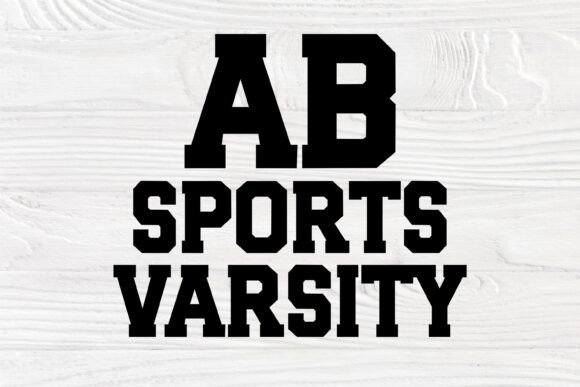
Sports Varsity Font
Get ready to add a touch of athletic charm to your craft projects with this Varsity font! Perfect for sports enthusiasts and college fans, this font includes Varsity letters and numbers in a classic college font style. Create personalized team gear, spirit wear, or home decor with ease using this versatile typeface. Whether you’re crafting for a sports event or simply want to add a sporty vibe to your creations, this Varsity font is sure to make a winning statement!